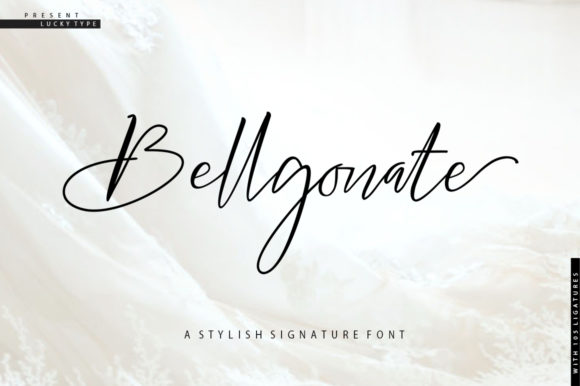
Bellgonate Script Font: Elevate Your Designs with Elegance and Sophistication
In the world of typography, few fonts manage to strike a balance between classic elegance and modern flair. The Bellgonate Script Font is one such exceptional typeface that seamlessly merges traditional sophistication with contemporary style. This unique signature script is designed to add a touch of luxury and refinement to any design project, making it a versatile and valuable addition to the arsenal of designers and crafters alike.
The Essence of Bellgonate Script Font
The Bellgonate Script Font is characterized by its fancy letters with an elegant italic style. Each letter is crafted with precision and care, exhibiting a fluidity that is both visually appealing and highly legible. The font’s classical touch is evident in its adherence to traditional script principles, while its modern swirls and swashes inject a fresh and dynamic energy.
One of the standout features of the Bellgonate Script Font is its elegant composition. This makes it incredibly versatile, suitable for a wide range of applications. Whether you’re working on logos, branding, packaging, or any other design project, this font has the potential to elevate your work to new heights. The only limitation, as the creators aptly point out, is your imagination.
Applications of Bellgonate Script Font
The versatility of the Bellgonate Script Font is one of its most compelling attributes. Here are some of the key areas where this font truly shines:
- Logos and Branding: For businesses looking to establish a sophisticated and elegant brand identity, the Bellgonate Script Font is an excellent choice. Its unique and memorable style can help brands stand out in a crowded marketplace.
- Packaging: The font’s elegant and modern aesthetic makes it perfect for product packaging, especially for luxury goods, cosmetics, and high-end electronics.
- Stationery and Invitations: For those looking to add a touch of class to their stationery, wedding invitations, or event announcements, the Bellgonate Script Font offers a beautiful and refined solution.
- Digital Media: In the realm of digital content, this font can be used to create engaging headings, titles, and even social media graphics that demand attention and convey sophistication.
Why Designers and Crafters Love Bellgonate Script Font
Designers and crafters are always on the lookout for typefaces that can help their work stand out. The Bellgonate Script Font offers several reasons why it’s become a favorite among creative professionals:
- Unique Style: In a sea of generic fonts, Bellgonate offers a distinctive style that can make any project memorable.
- Ease of Use: Despite its complex appearance, the font is surprisingly easy to use, allowing designers to create beautiful text with minimal effort.
- Customization: With its swirls and swashes, designers have ample opportunities to customize and fine-tune the font to fit their project’s specific needs.
The Bellgonate Script Font is more than just a typeface – it’s a design statement. Its unique blend of classic elegance and modern flair makes it an invaluable resource for designers and crafters looking to add a touch of sophistication to their work. Whether you’re creating a brand identity, designing packaging, or crafting digital content, this font offers the versatility and style to make your project shine. With the Bellgonate Script Font, the possibilities are endless, and the only limit is indeed your imagination.
So, if you’re looking to elevate your designs and give them a distinctive edge, consider incorporating the Bellgonate Script Font into your workflow. Its elegance, versatility, and sheer aesthetic appeal make it a worthwhile addition to any creative project.